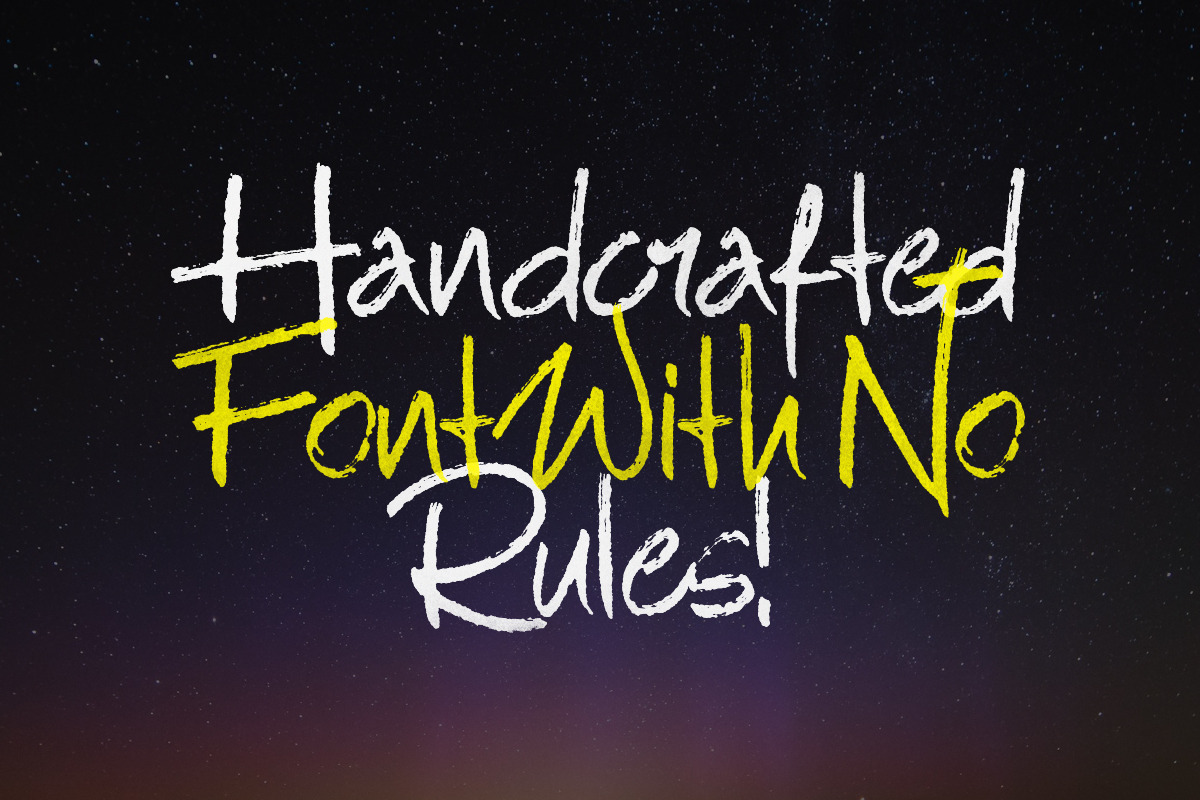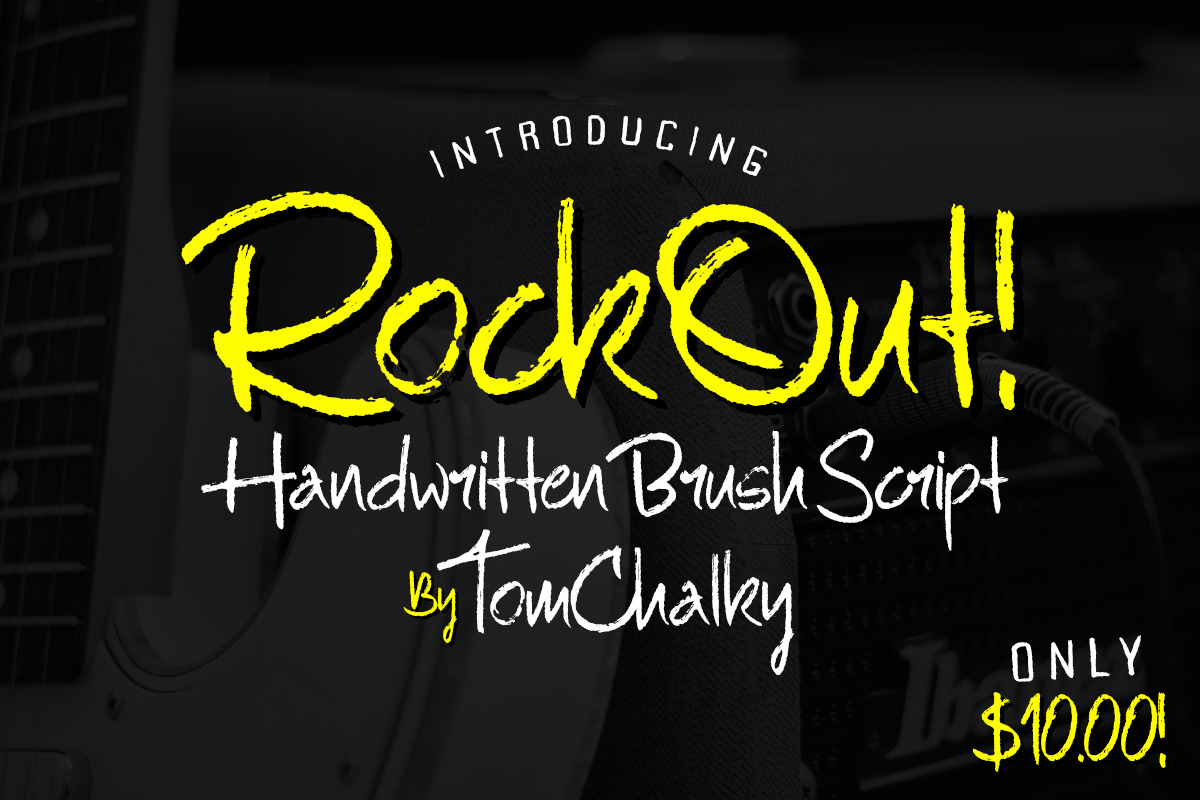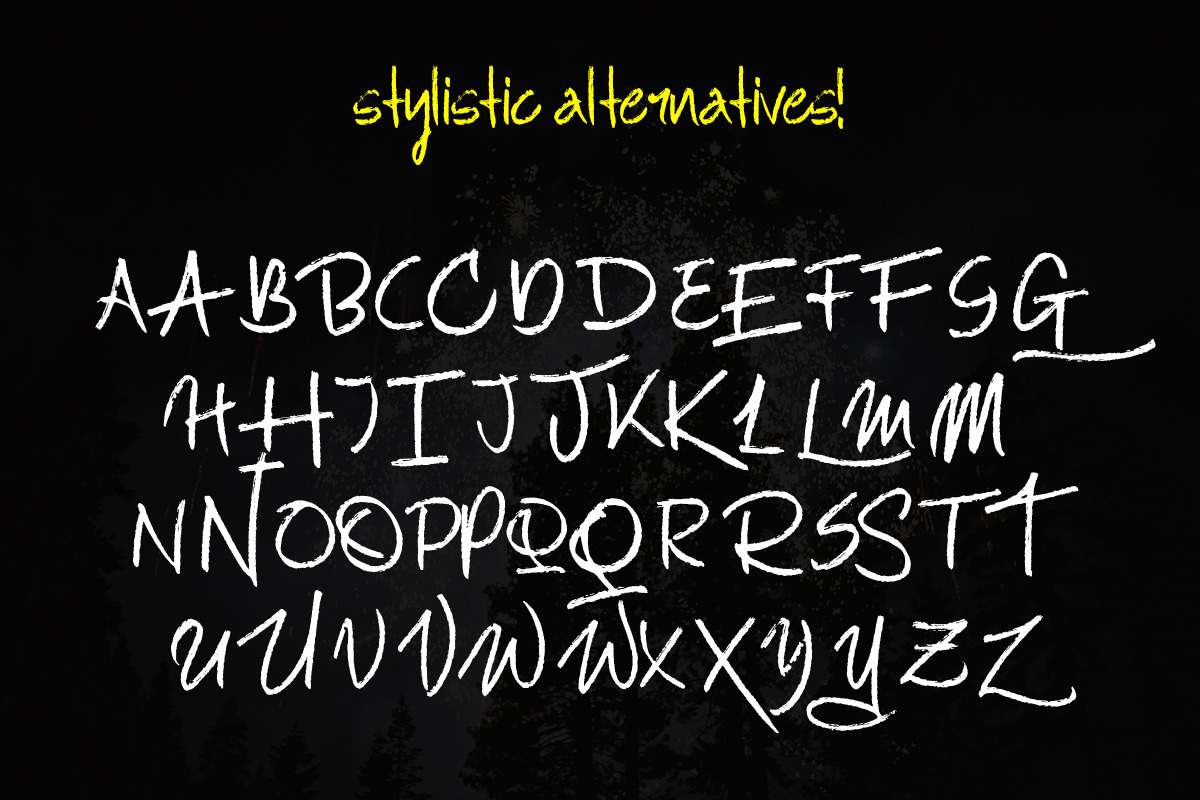
Introducing Rock Out - My latest Brush Script display font. Rock Out is rough, loud, creative and stands out from the crowd whilst *still* being a legible typeface. All of the uppercase letters have awesome Opentype Stylistic Alternatives that bring even more versatility to the table. UPDATE - Now Includes Jimmy Sans Brush! A multilingual sans brush font that beautifully complements Rock Out! - This font family has been included within The Ultimate Handcrafted Fonts Collection! 110 Fonts and a whole bunch of design extras for just $39 - https://crmrkt.com/ej5jxd - The Run Down - OTF & TTF Format Included - Handcrafted with a Brush Pen - Stylistic Alternatives - Uppercase and Lowercase Glyphs - Free Future Updates! - Multilingual Glyph Coverage - If you have any questions regarding RockOut pre and post purchase, be sure to get in touch. I'm happy to help! - If you like my work, you'll love my newsletter. Subscribe today for a whole bunch of free downloads and be the first to hear about new products - https://tomchalky.com/sign-up-for-access/ | RockOut Script + Bonus Font | Tom Chalky